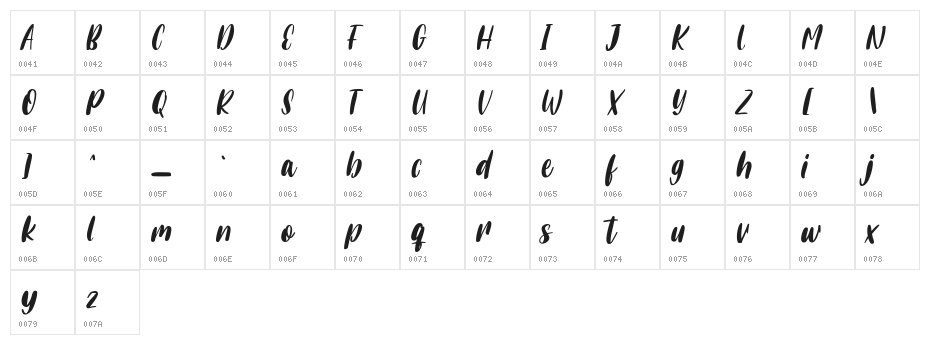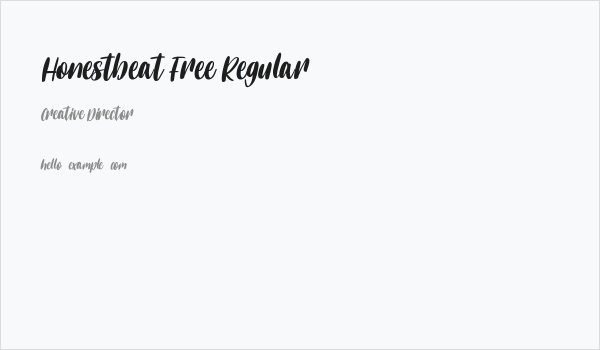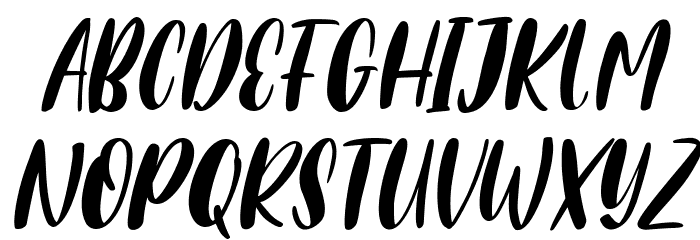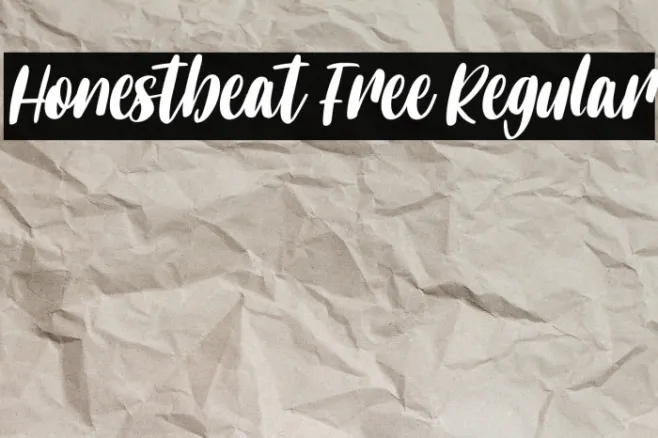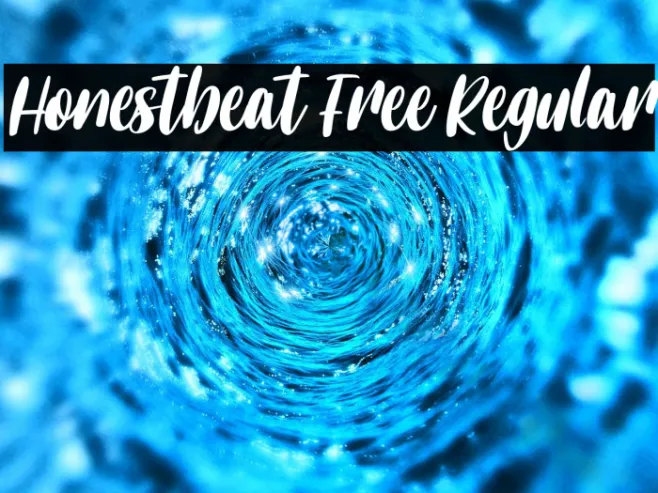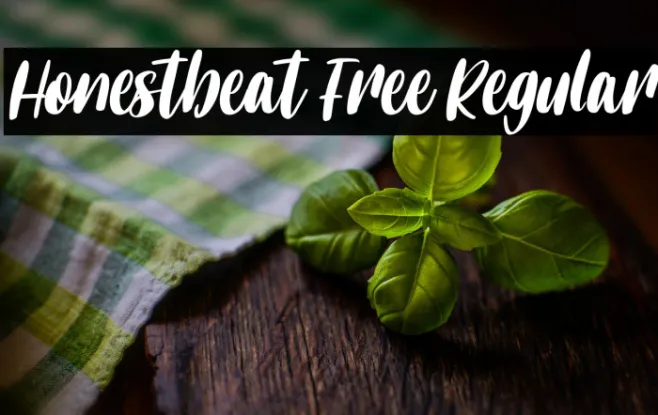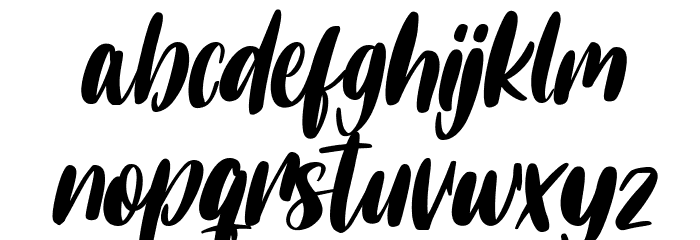
Honestbeat Free Regular Font
Honestbeat Free Regular Description
This font features a bold and expressive script style, characterized by fluid, sweeping strokes that convey a sense of movement and energy. The letters are closely connected, creating a harmonious flow that is both elegant and dynamic. The uppercase letters are tall and commanding, while the lowercase letters maintain a consistent rhythm with their rounded forms and smooth curves. The overall appearance is modern and stylish, making it suitable for a variety of creative applications. The font's boldness ensures it stands out, while its script nature adds a touch of sophistication.